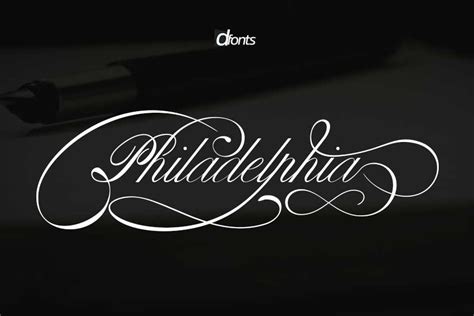
Phillies Cursive Font. Philadelphia phillies is a typeface that looks familiar. Web philadelphia phillies font.
This cool display font was. Web philadelphia phillies font. Philadelphia phillies is a typeface that looks familiar.
This cool display font was. Philadelphia phillies is a typeface that looks familiar. Web philadelphia phillies font. This cool display font was.